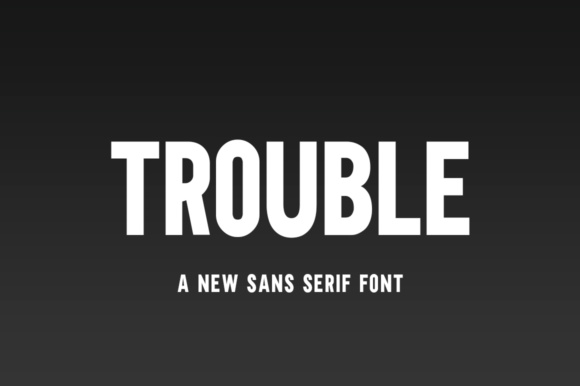
Introducing Trouble Font - the ultimate sans serif font that will revolutionize your work! Created by Salt and Pepper Fonts, Trouble is more than just a font - it's a statement. With its unique blend of style and sophistication, Trouble Font is the perfect addition to any designer's toolkit.
Looking to elevate your design game? Trouble Font has got you covered! Its sleek and modern design is perfect for any project, from logos and branding to packaging and advertising. Whether you're a seasoned pro or just starting out, Trouble Font is the perfect choice for anyone looking to make a bold statement.
So why choose Trouble Font? For starters, its clean lines and minimalistic design make it incredibly versatile. It's able to add a little bang and sophistication to your work and also hold its own around those pretty scripts! Plus, its eye-catching design is sure to grab the attention of anyone who sees it.
But that's not all - Trouble Font is also incredibly easy to use. With its simple and intuitive interface, you can quickly and easily create stunning designs that are sure to impress. And with its wide range of weights and styles, you can customize your designs to perfectly fit your needs.